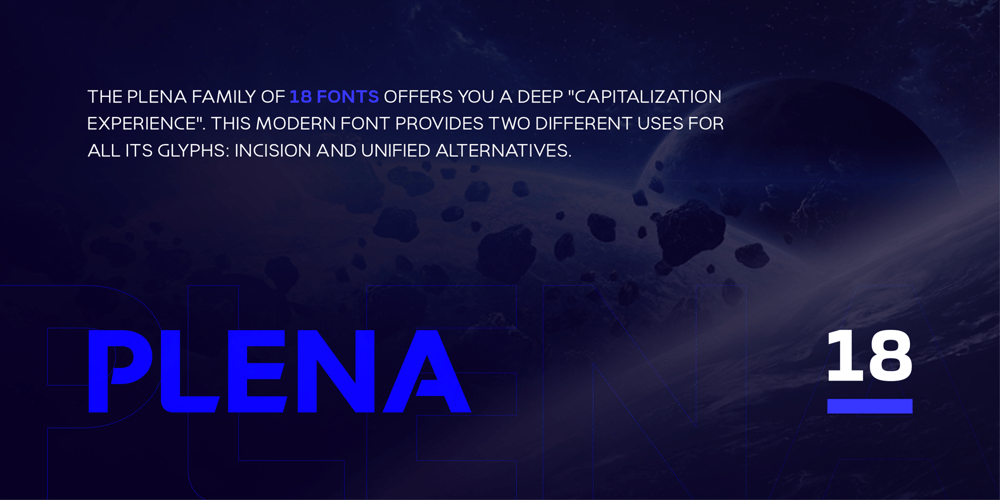
Plena Font Family was designed by Serdar Öztürk and published by Serdar Ozturk. Plena contains 18 styles and family package options. The Plena font offers a modern all-caps experience. All glyphs have incision and unified alternatives and can be shaped for your intended use.This font is crafted for different design trends and would look great for your large print banner headers. It can be preferred by the designer in accordance with its intended use and can be used impressively and strikingly with its large family on different platforms.Plena also offers multilingual support.